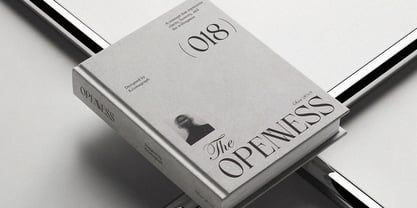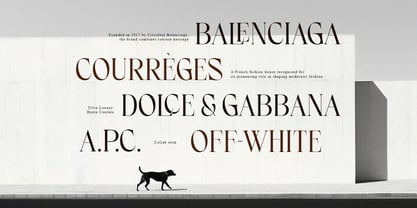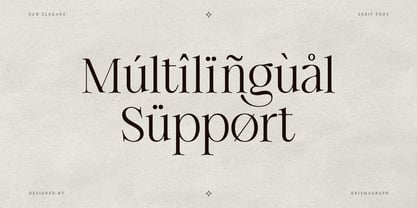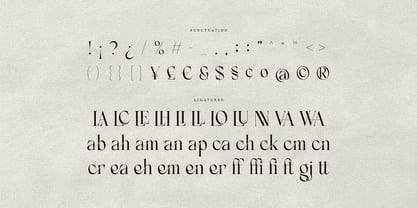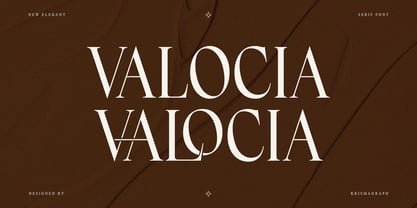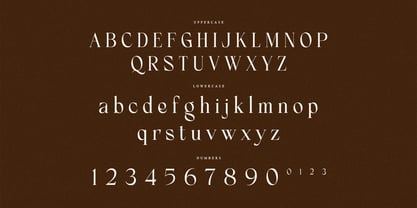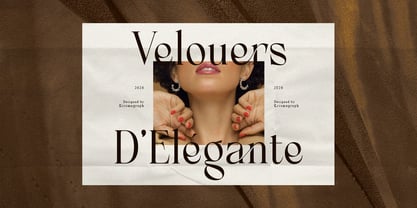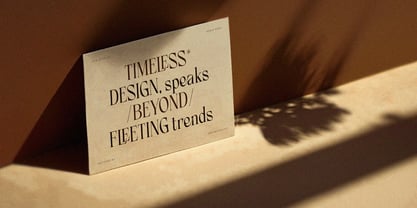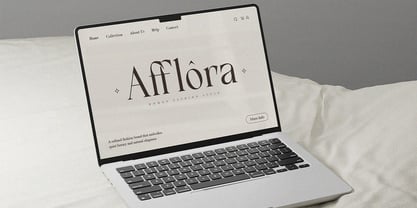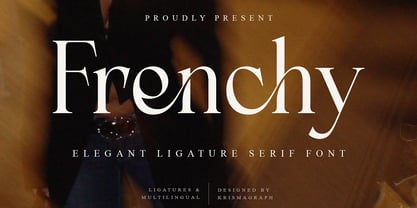
Frenchy
by Krismagraph
The Frenchy Font Family was designed by Ratna Krismawati and published by Krismagraph. Frenchy contains 1 styles. More about this family
Frenchy is an elegant ligature and modern serif font designed with clean proportions, refined contrast, and a timeless character. Its balanced structure and graceful details make it suitable for contemporary design needs while maintaining a classic serif foundation. This font works beautifully for branding, editorial layouts, logo design, packaging, website headlines, posters, and premium print materials. Frenchy delivers clarity and sophistication, allowing text to stand out without feeling overly decorative. Frenchy is ideal for designers looking for a versatile serif font that feels modern, professional, and visually confident across both digital and print applications. What you get : - Frenchy Regular - Numbers, fractions - Punctuation and symbols - Alternates - Ligatures - Multilingual support Feel free to follow, like, and share. Thank you and I hope you enjoy it!
Designers: Ratna Krismawati
Foundry: Krismagraph